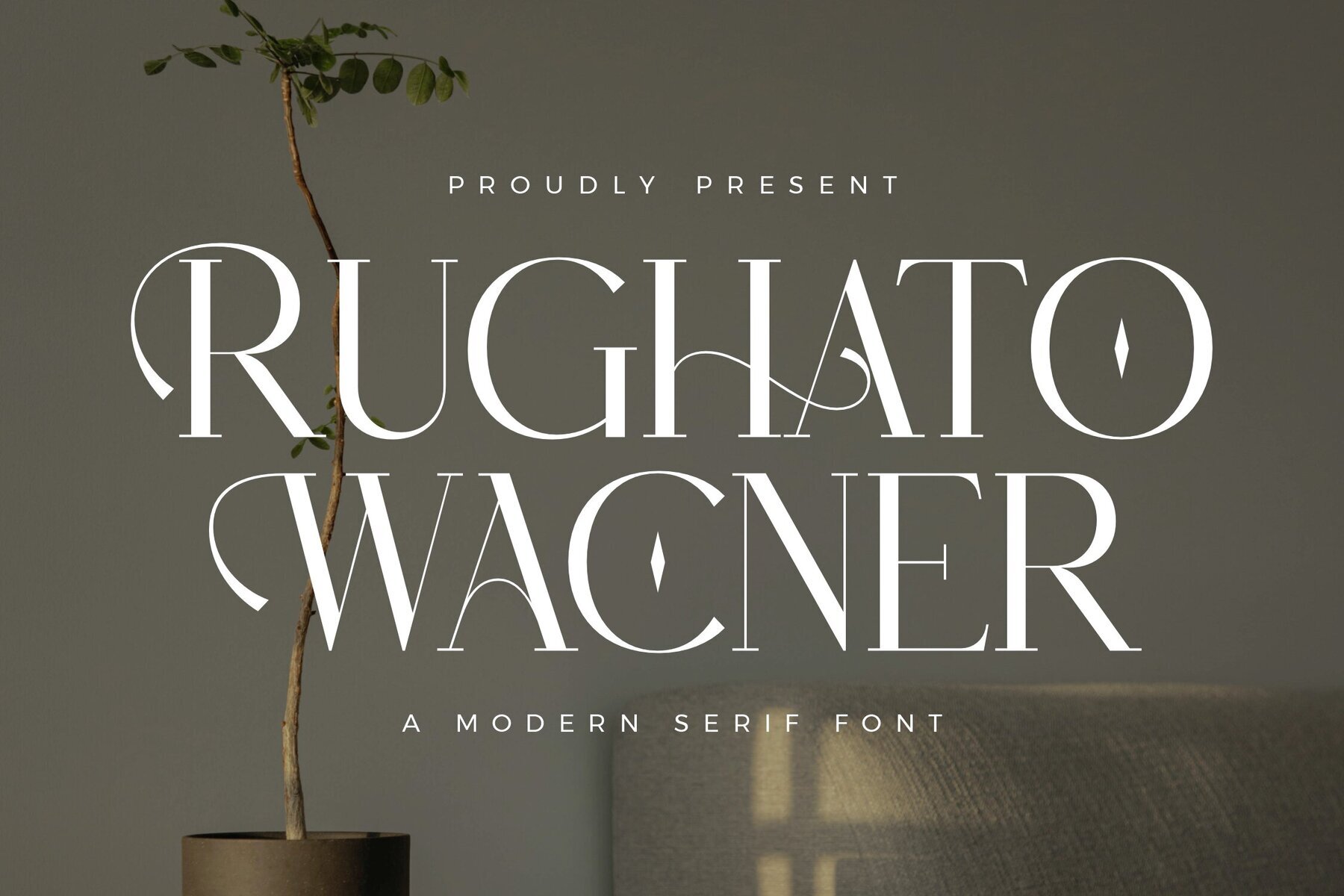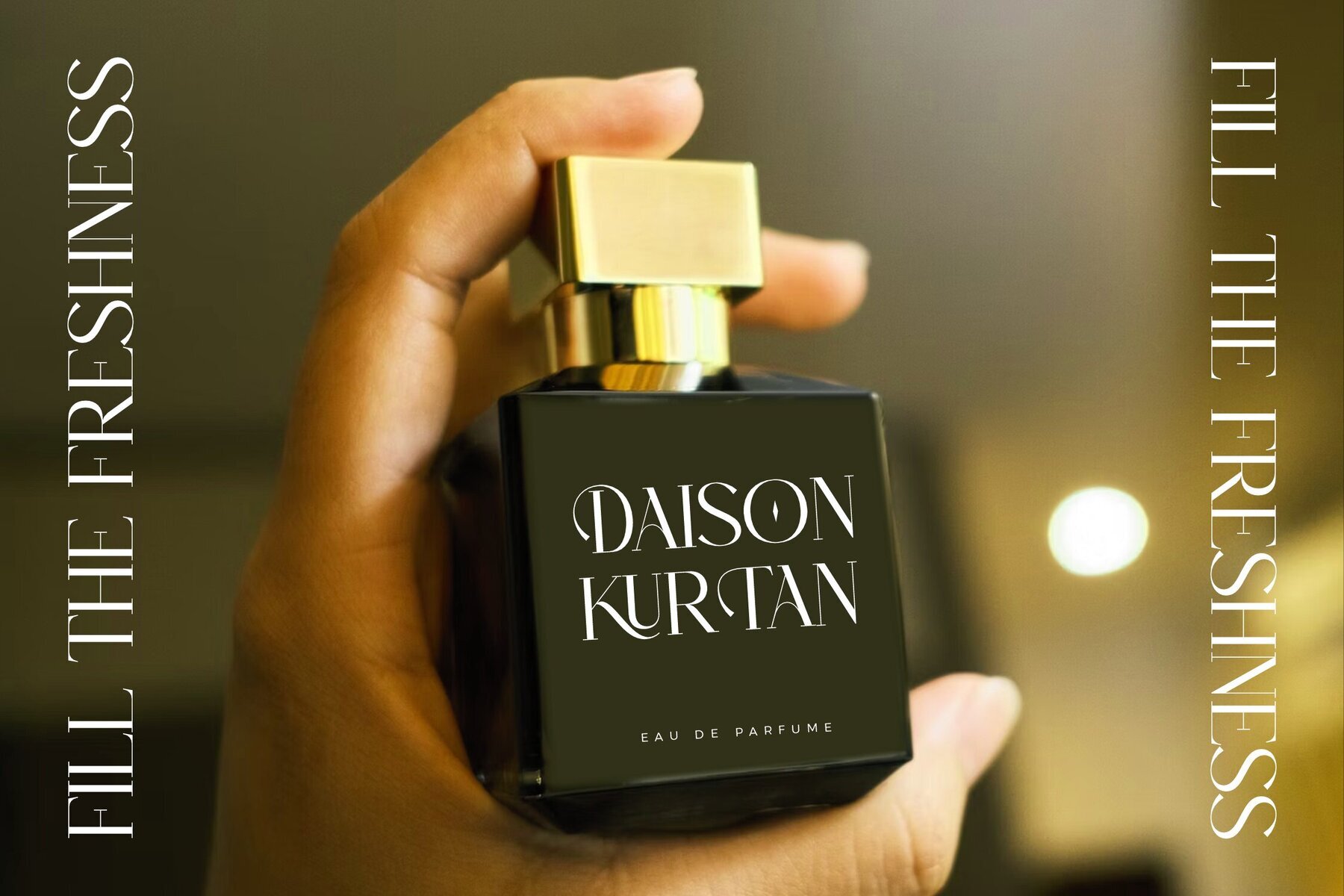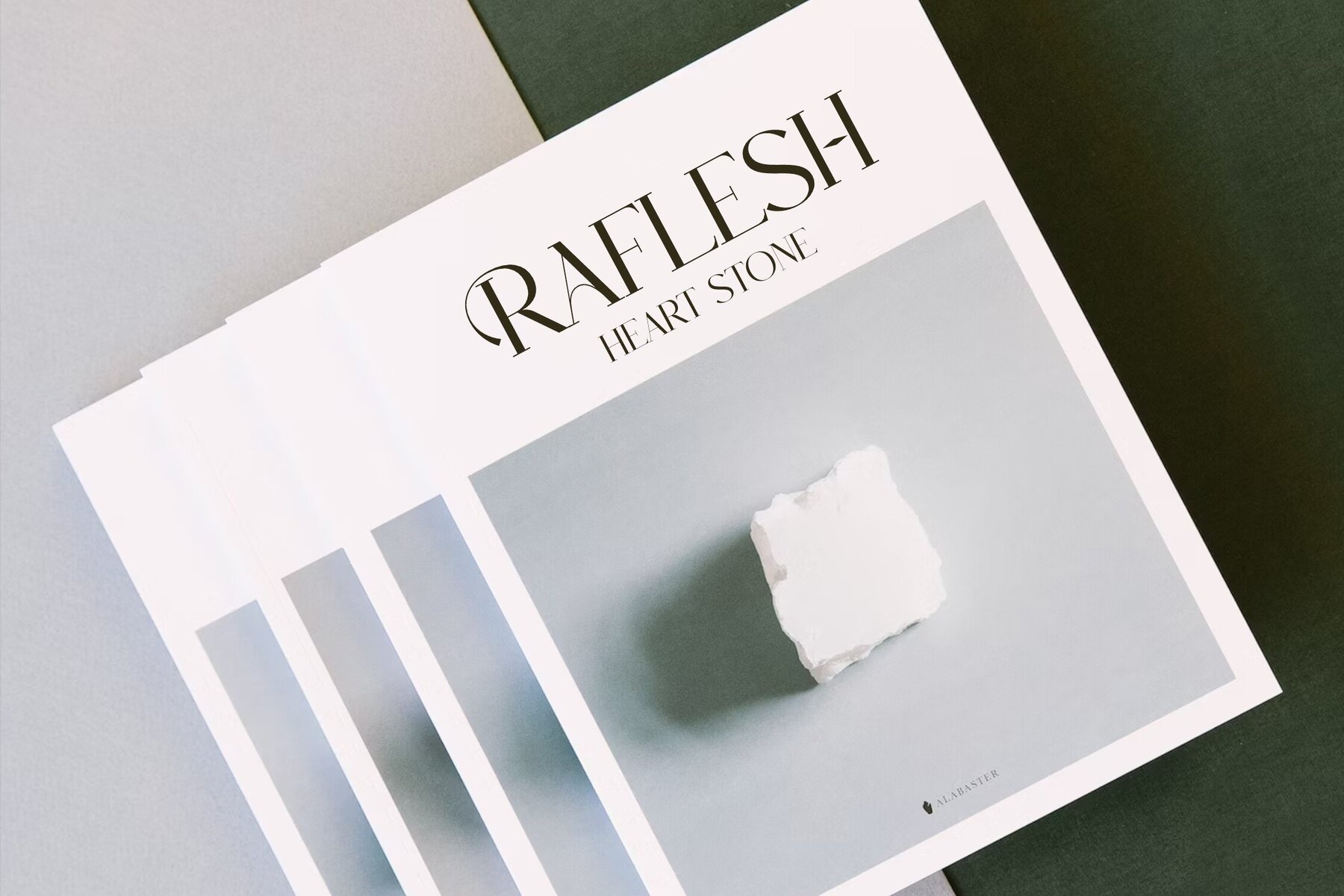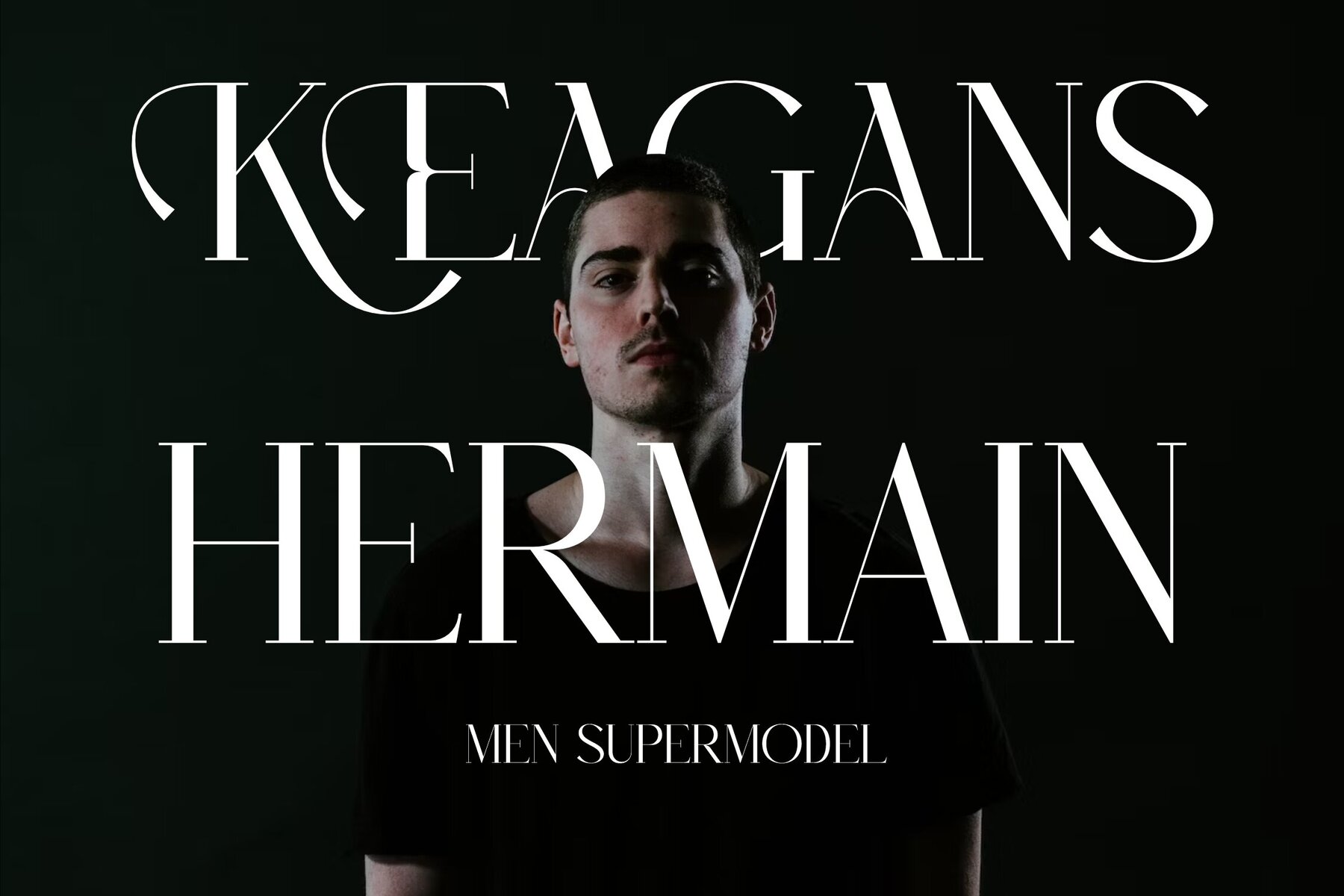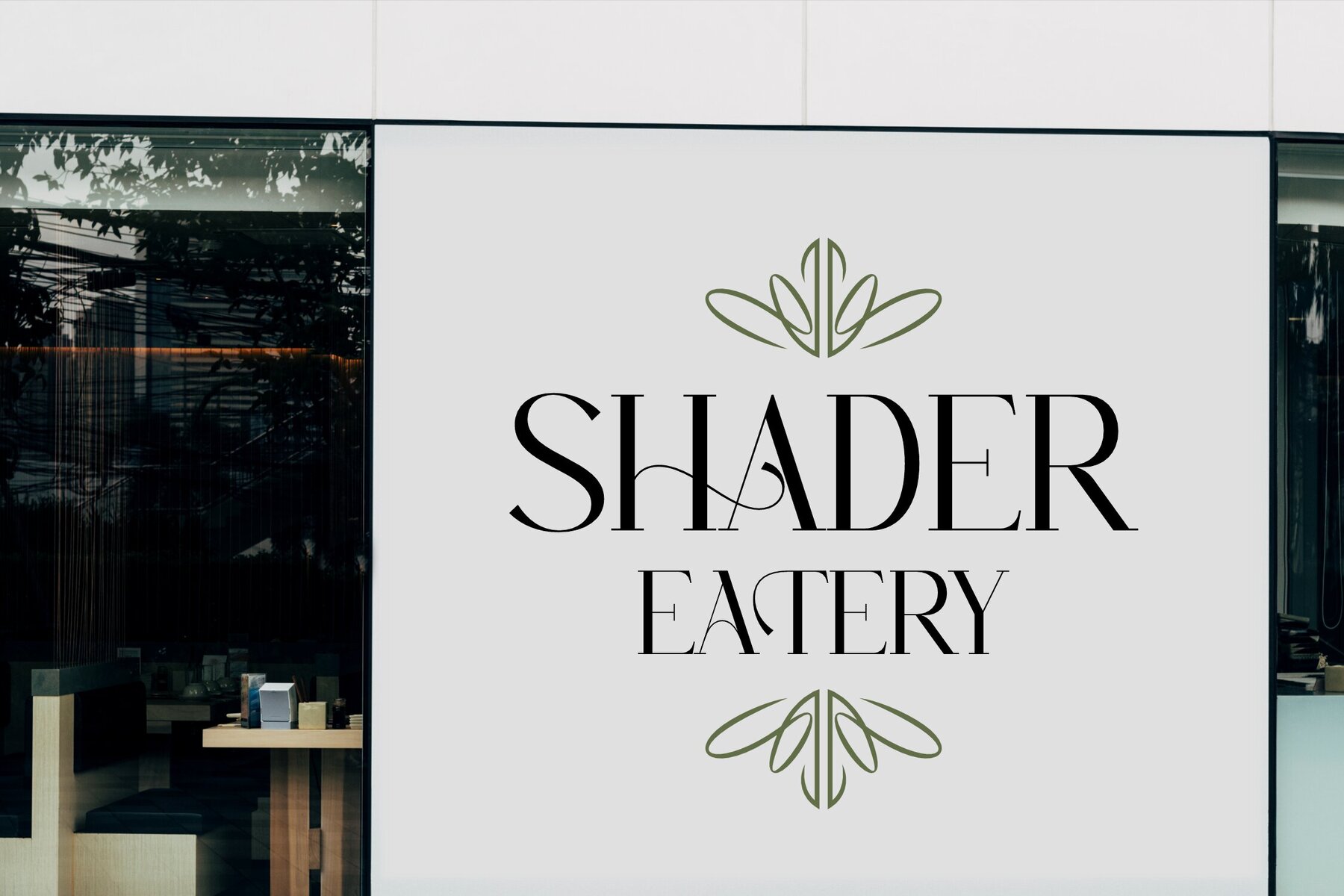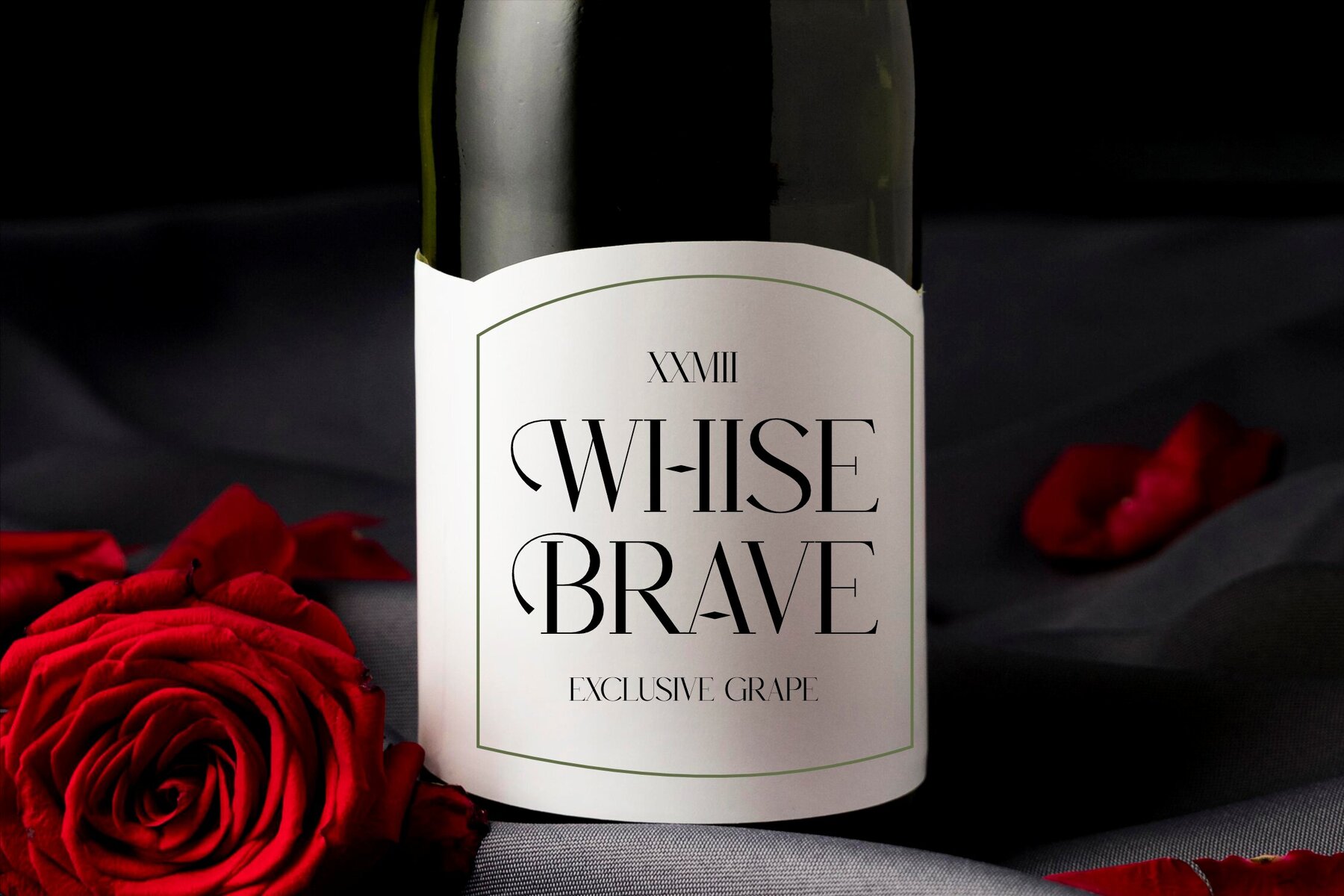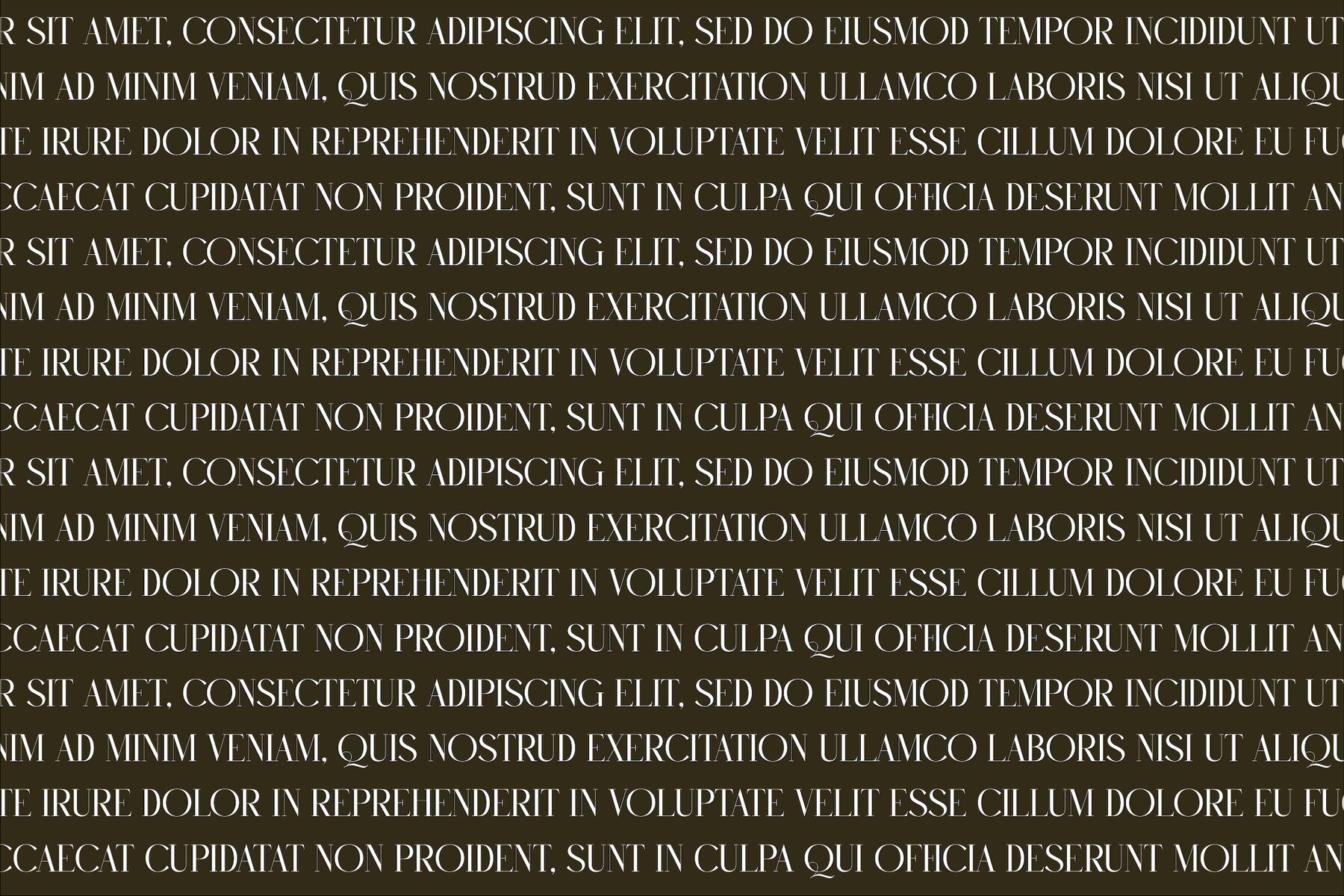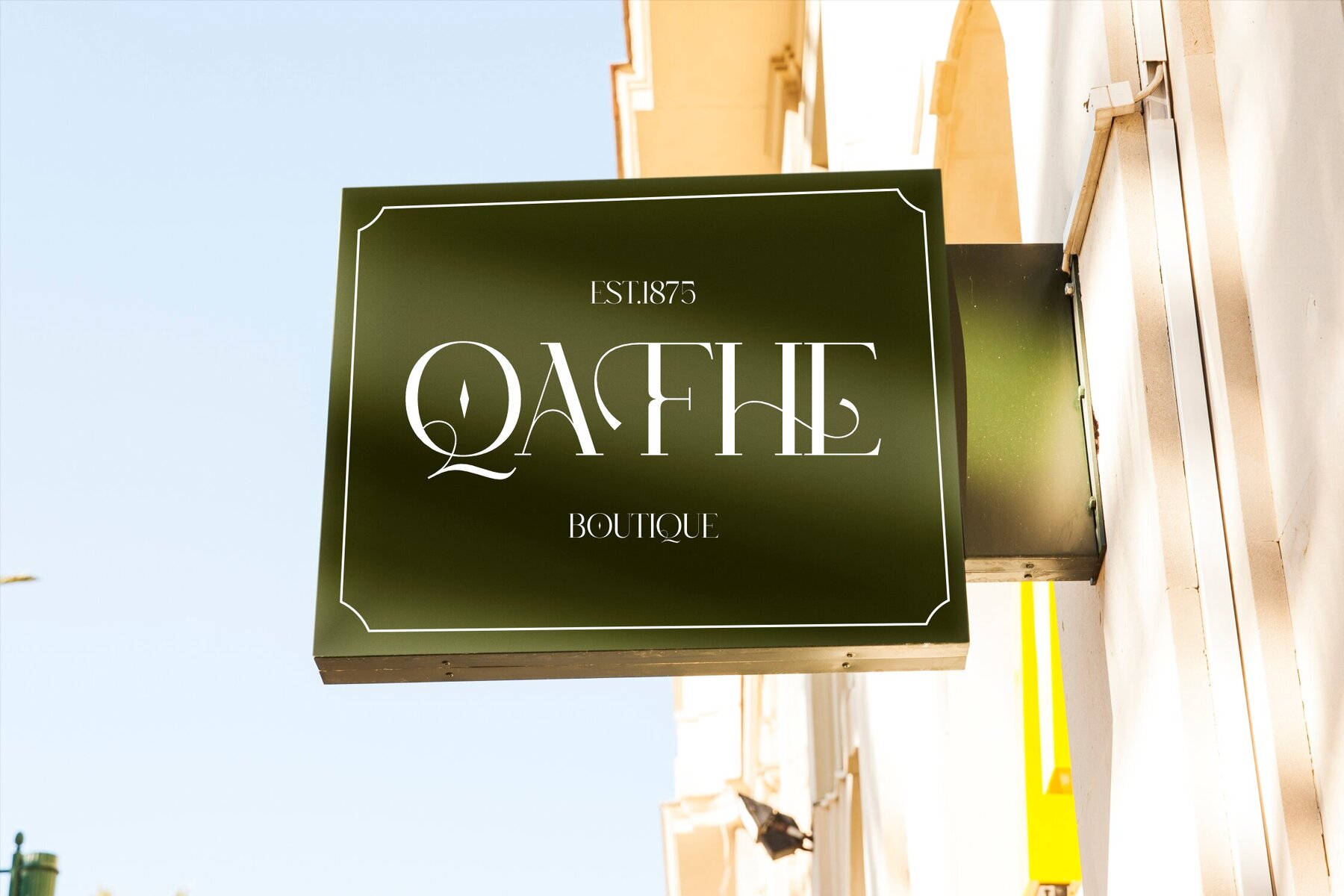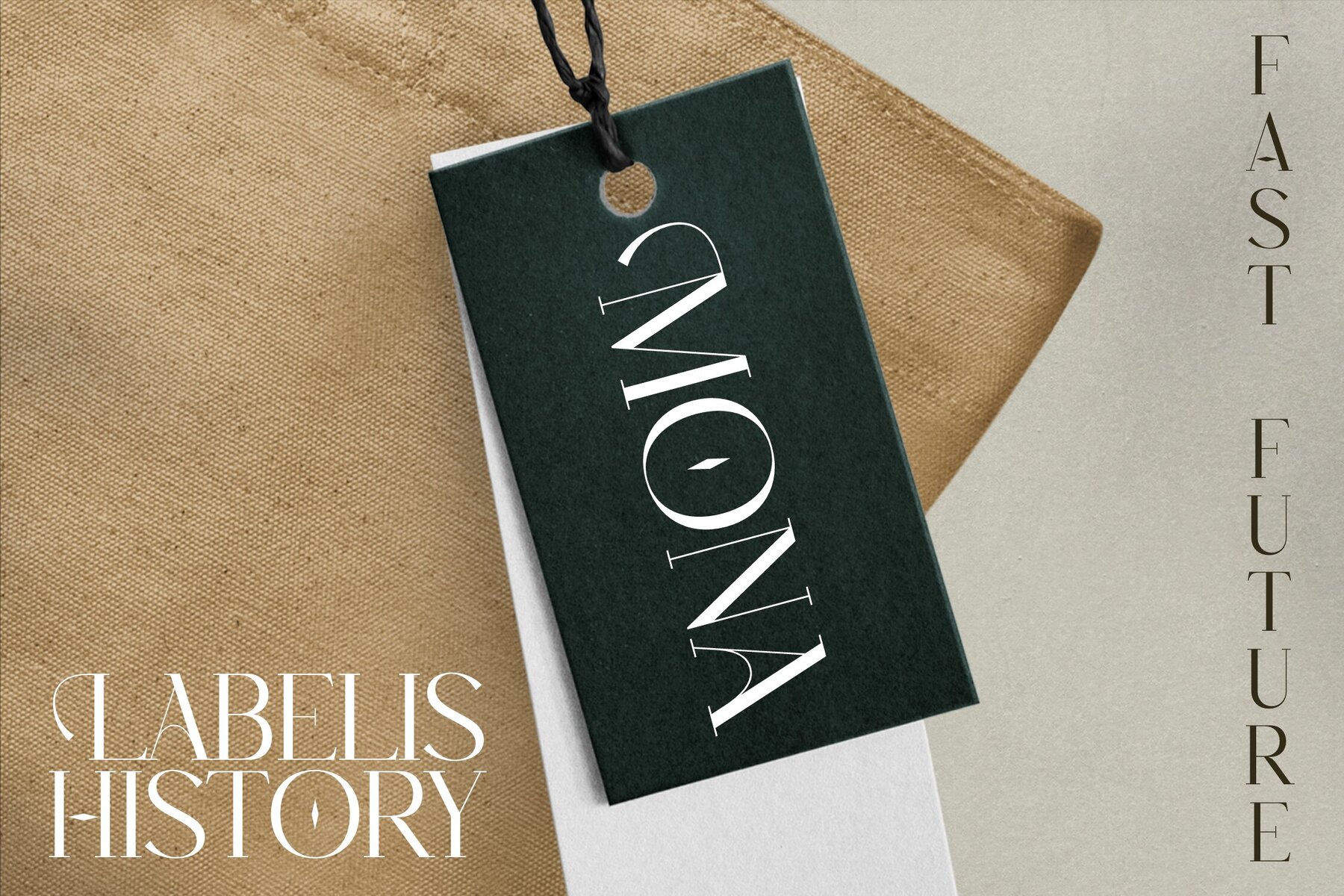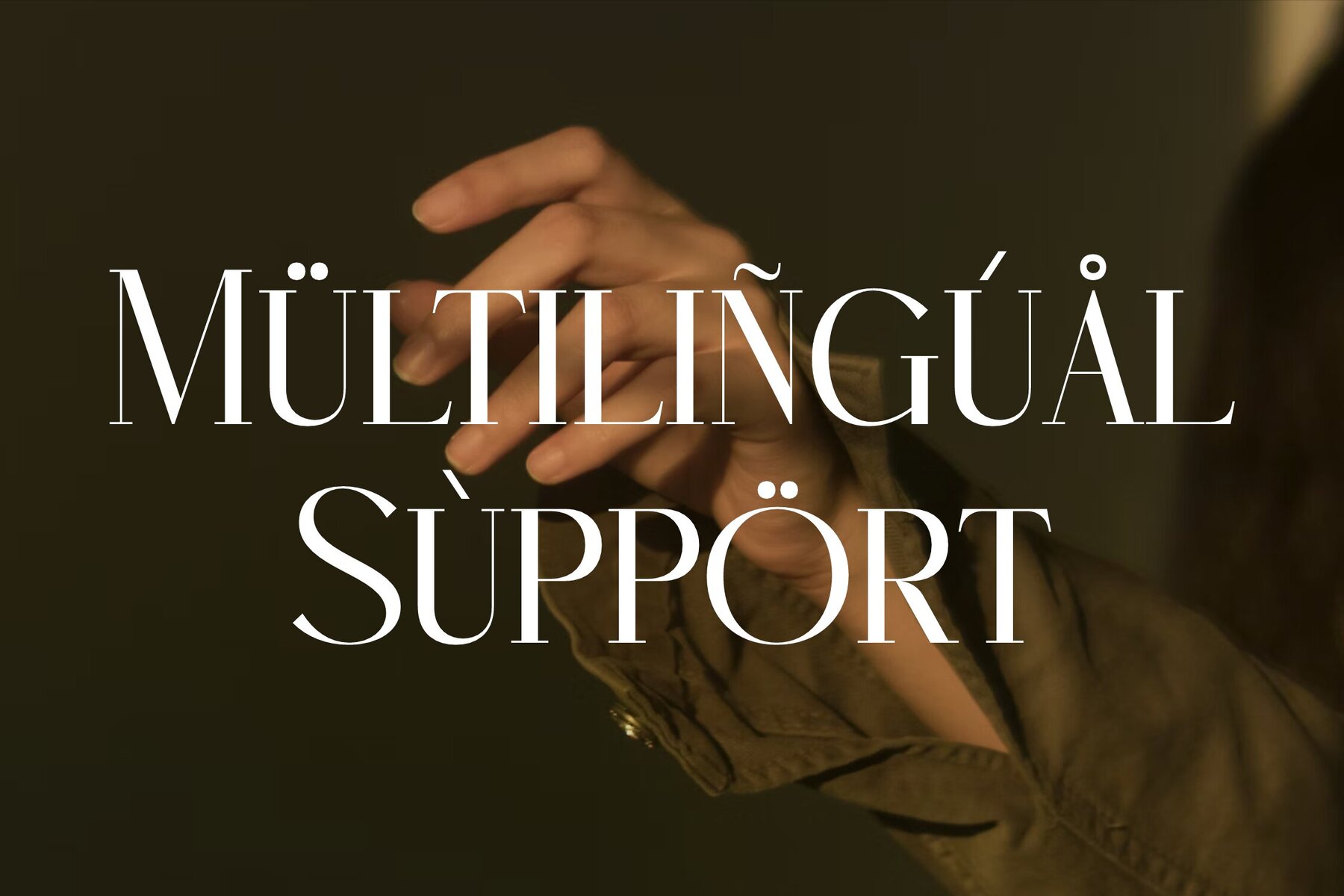
RUGHATO WACNER Font
RUGHATO WACNER Regular
RUGHATO WACNER Italic
Discover the timeless elegance of the Rughato Wacner Typeface by Storytype Studio. This sophisticated serif font merges modern aesthetics with classic appeal, making it an ideal choice for creating luxurious logos, impactful book or movie titles, and distinguished fashion brand identities. Its versatility extends to magazine designs, clothes branding, and artistic lettering or quotes.Introducing the Rughato Wacner Typeface